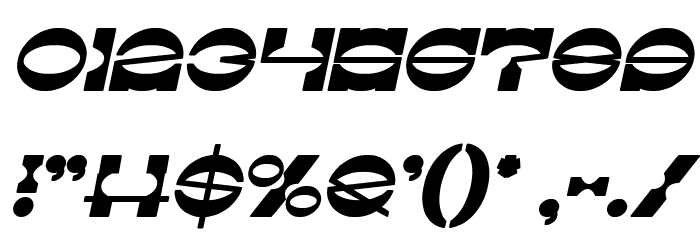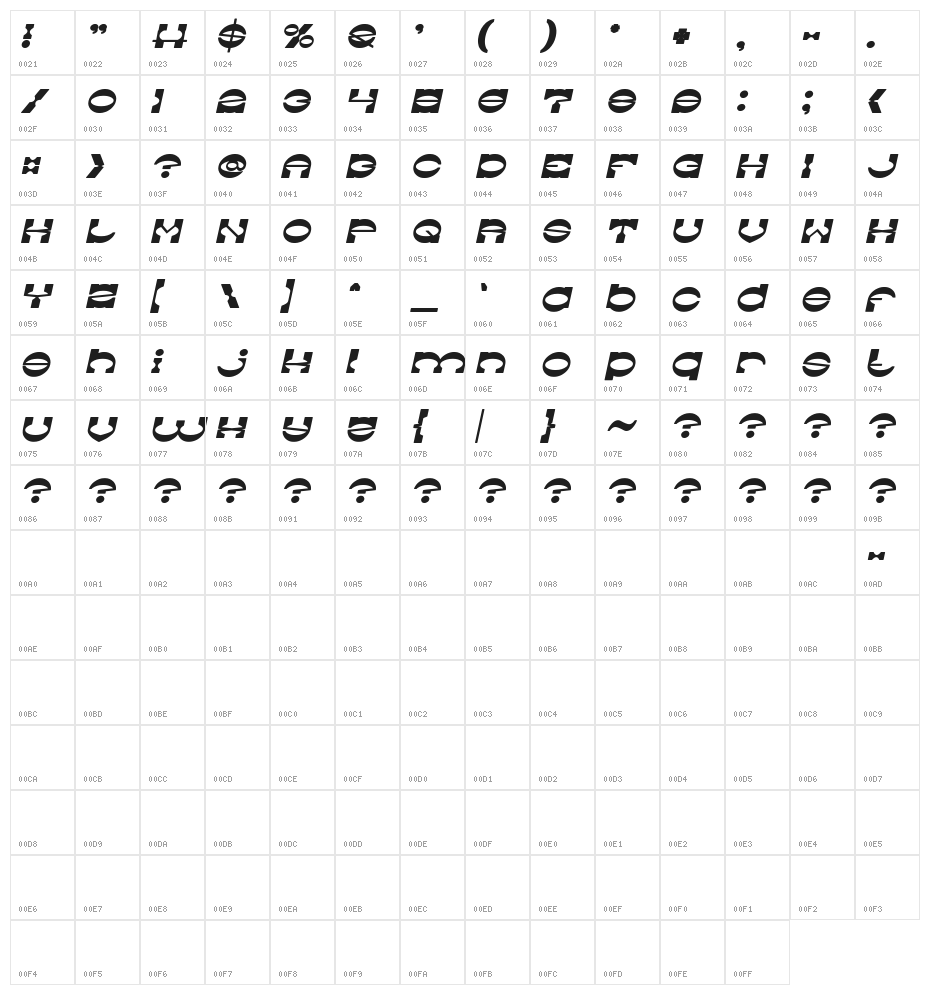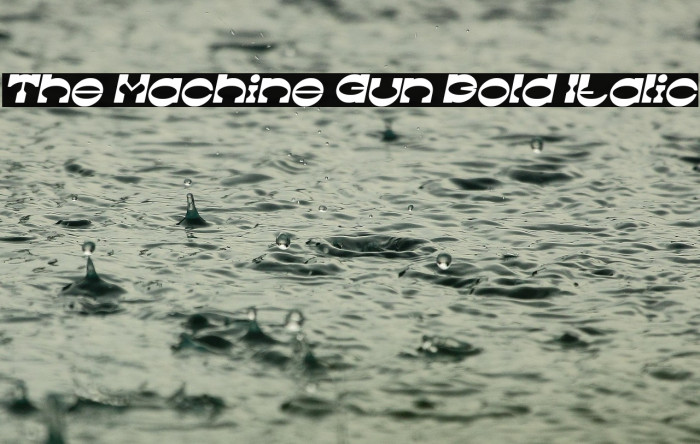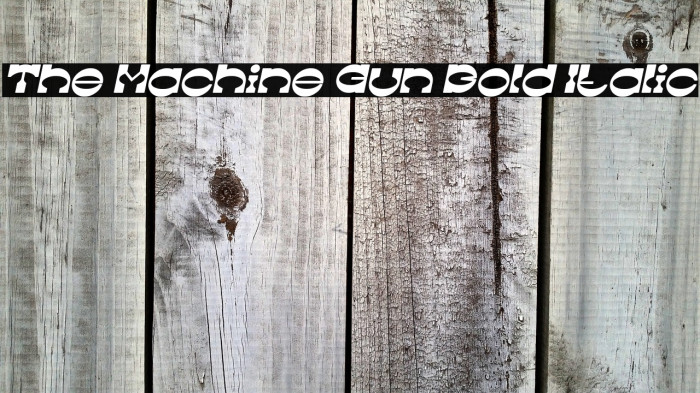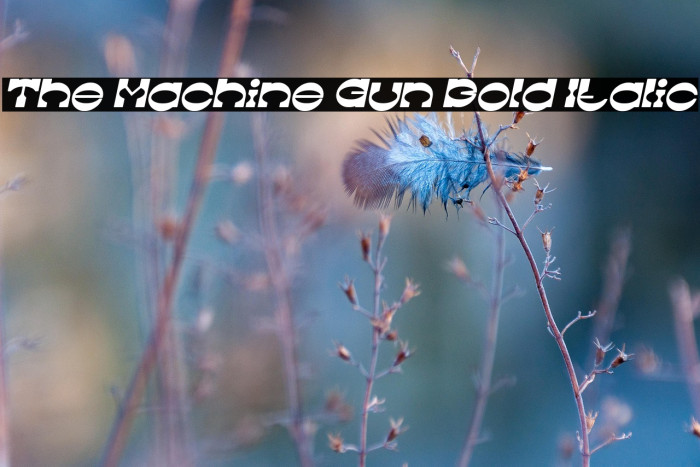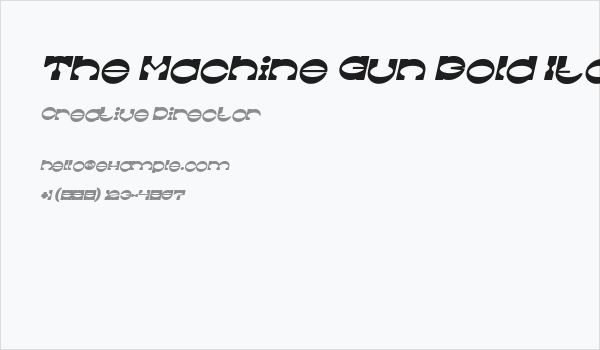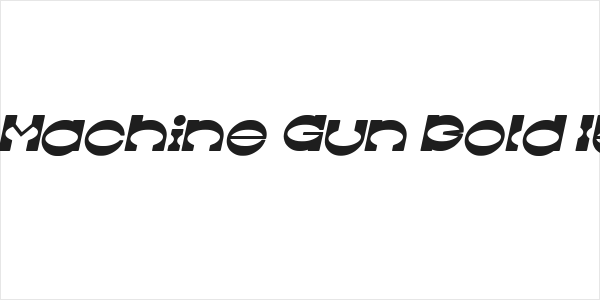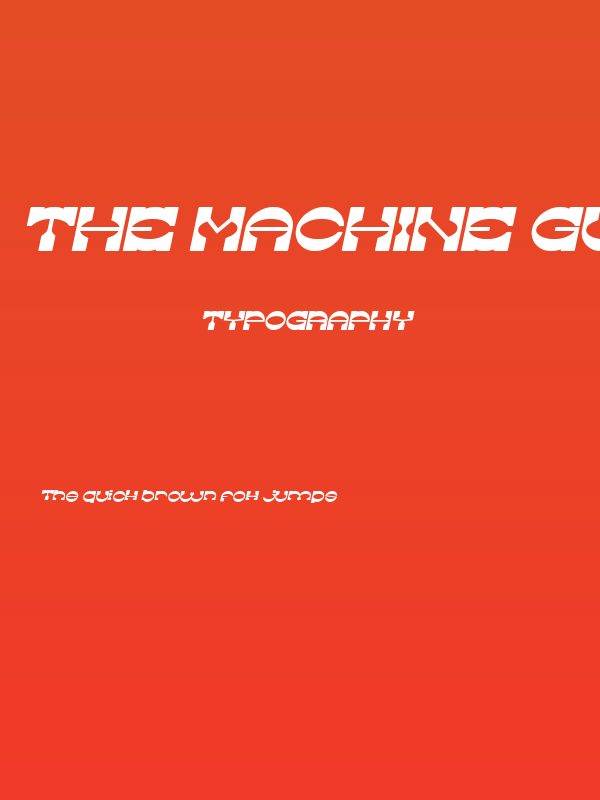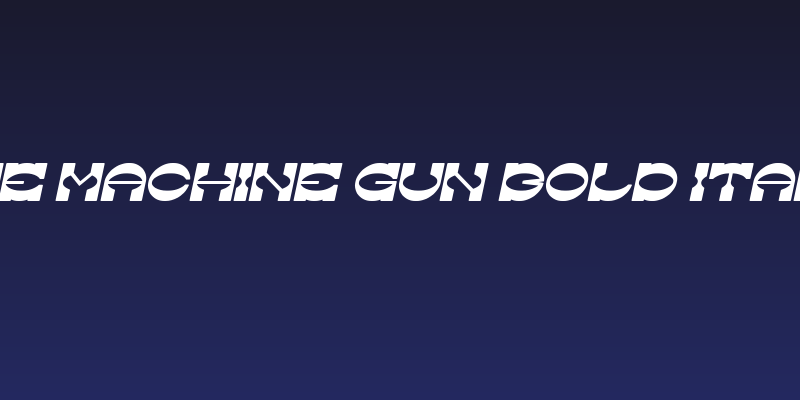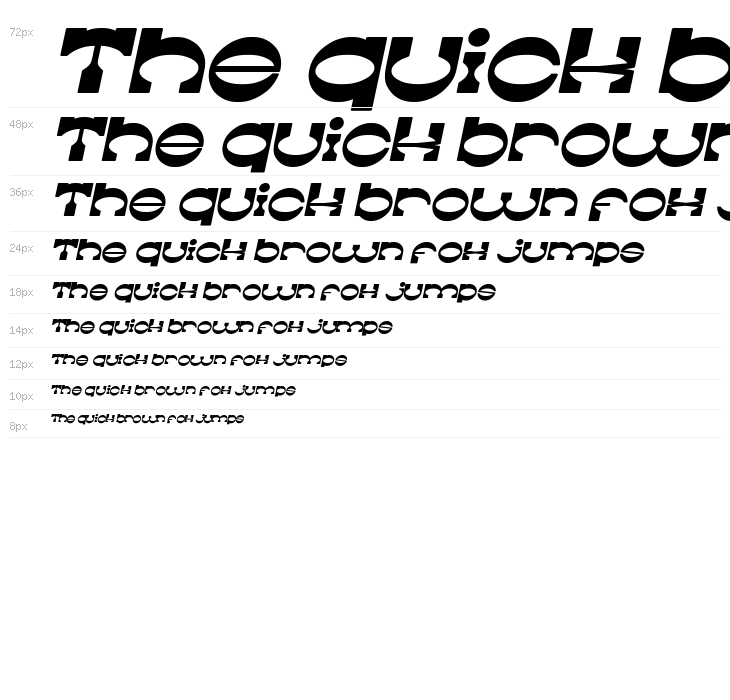
The Machine Gun Bold Italic Font
The Machine Gun Bold Italic Description
This font features a bold and italicized style with a futuristic and mechanical aesthetic. The characters are designed with sharp angles and geometric shapes, giving them a dynamic and aggressive look. The uppercase and lowercase letters maintain a consistent style, with the lowercase letters slightly more rounded. Numbers and special characters follow the same design principles, ensuring uniformity across all glyphs. The font's boldness and slanted orientation add to its striking appearance, making it ideal for attention-grabbing designs.